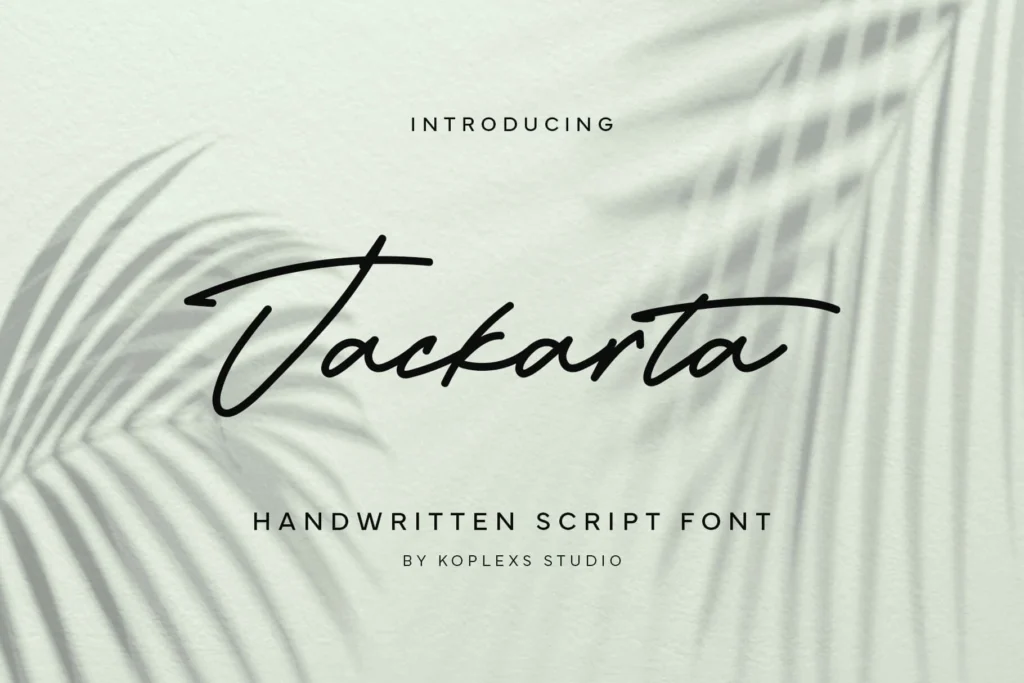
Have you ever noticed how a single handwritten-style word on a poster or invitation instantly feels more emotional or personal? That’s the unique charm of script alphabet fonts. They bring personality, artistry, and expression into visual design. Whether you’re building a brand or creating social media content, script fonts can help set the tone and shape how people perceive your message.
In this article, you’ll learn what makes script fonts distinctive, why designers love them, how different styles influence visuals, and practical considerations when choosing one. If you want your designs to stand out with elegance, warmth, or creative flair, understanding script fonts is essential.
Understanding Script Alphabet Fonts
Script alphabet fonts are typefaces designed to mimic handwriting and calligraphy. They range from formal and refined to casual and expressive.
Key Characteristics
- Varied stroke weight that imitates natural pen pressure
- Flowing and connected letterforms that create seamless handwriting-like shapes
- A dynamic baseline that rises and dips for an organic feel
- Ligatures that enhance smooth transitions between letters
Common Use Cases
Script fonts are most effective in display settings, such as:
- Logos
- Invitations
- Packaging
- Social media graphics
- Headline text
Because of their decorative nature, they are not recommended for long paragraphs.
14 Popular Script Alphabet Fonts
Below are several script fonts that designers frequently choose for different purposes.
1. Lovaria Font
Visual Suggestion: Elegant wedding invitation mockup
Font Pairing: Lovaria + Playfair Display
This script alphabet font Lovaria offers elegant, flowing calligraphic strokes that merge luxury and modern handwritten style. It’s ideal for premium branding, wedding invites or high-end packaging. If you’re aiming to give your visuals a refined signature look, Lovaria is a smart choice. Try it now for your next design project.
Lovaria Font2. Vilmada Font
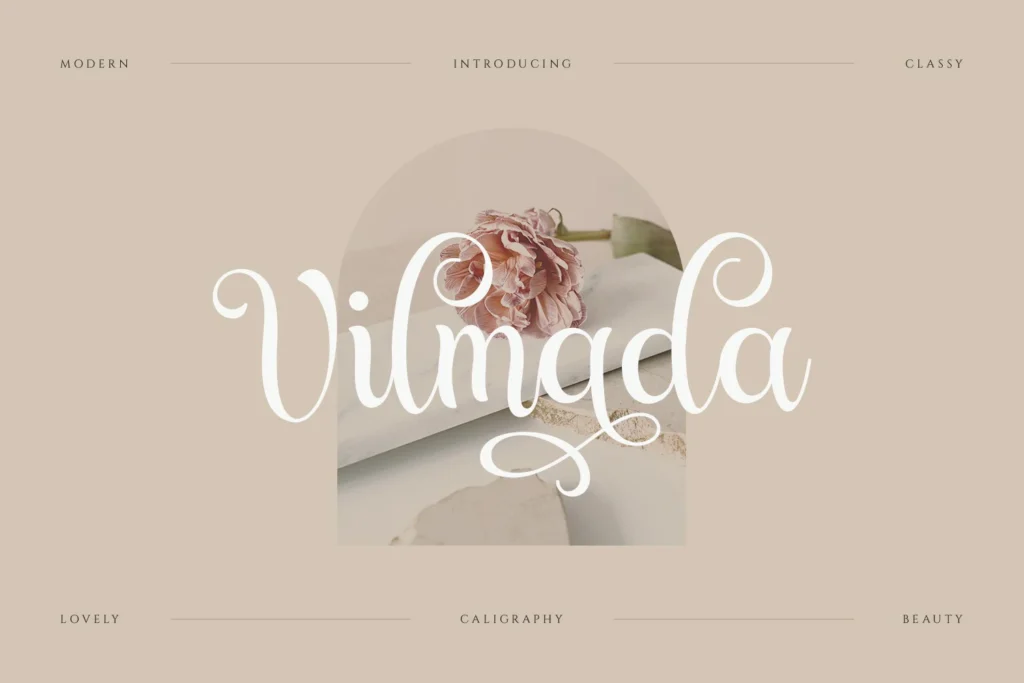
Visual Suggestion: Minimalist boutique logo design
Font Pairing: Vilmada + Lato
The script alphabet font Vilmada presents a sleek, natural handwritten aesthetic with clean fluid strokes. It works beautifully for lifestyle brands, blog headers or boutique logos. Give your typography a personal yet polished touch with Vilmada. Download and experiment today.
3. Welcome Dream Font
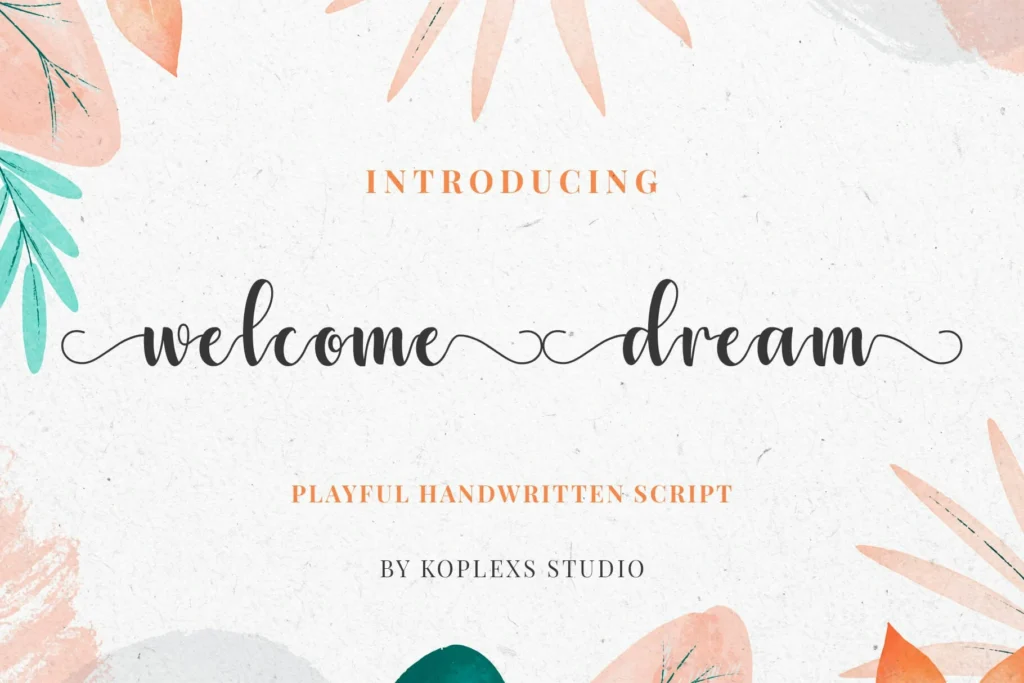
Visual Suggestion: Warm, soft-toned social media quote
Font Pairing: Welcome Dream + Montserrat
As a friendly and casual script alphabet font, Welcome Dream blends modern readability with handwritten charm. It’s perfect for creative headlines, social media graphics and everyday branding. Use it to bring warmth and authenticity into your designs. Get Welcome Dream and enhance your visual identity.
Visual Suggestion: Feminine beauty brand packaging
Font Pairing: Yellow Molly + Raleway
The script alphabet font Yellow Molly adds a playful, romantic vibe with its bouncy and fluid calligraphy style. Ideal for wedding stationery, feminine brands or boutique packaging, it brings personality and charm. Explore Yellow Molly to add character to your projects.
Visual Suggestion: Personal signature logo mockup
Font Pairing: Angelica Signature + Cormorant Garamond
The script alphabet font Angelica Signature gives a refined signature-style look, perfect for logos, business stationery or elegant personal branding. Use it when you want to project sophistication and a bespoke feel. Discover Angelica Signature for your premium design needs.
6. American Cloudie Font
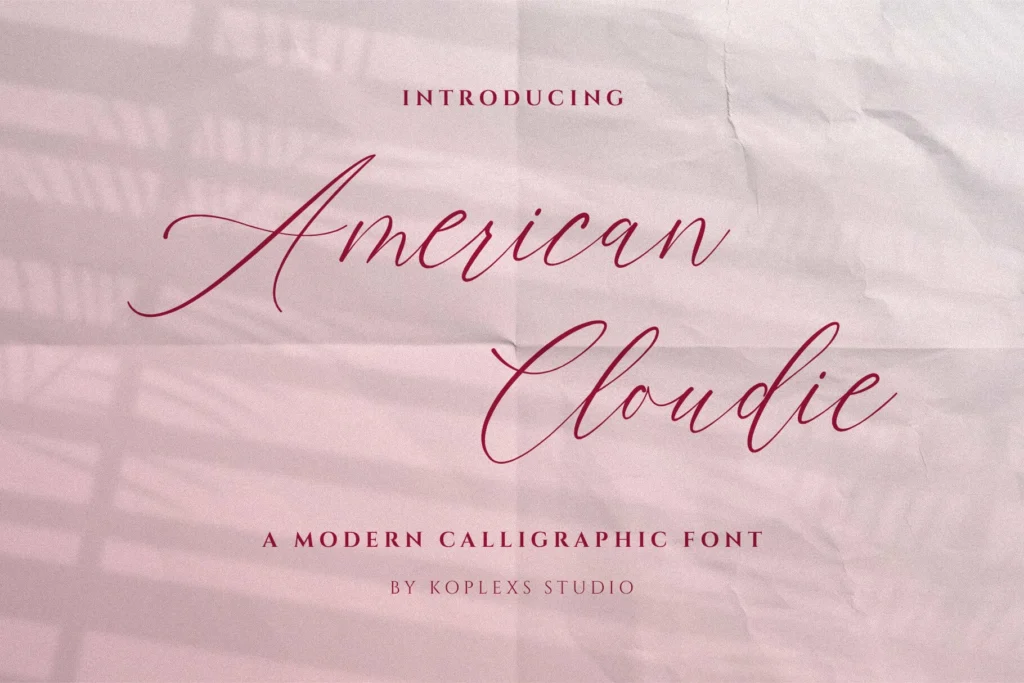
Visual Suggestion: Modern business card identity
Font Pairing: American Cloudie + Source Sans Pro
The script alphabet font American Cloudie offers a modern calligraphic style with expressive strokes, great for creative branding, signature logos and upscale prints. Add it to your font toolkit to give your brand a distinguished touch. Try American Cloudie now.
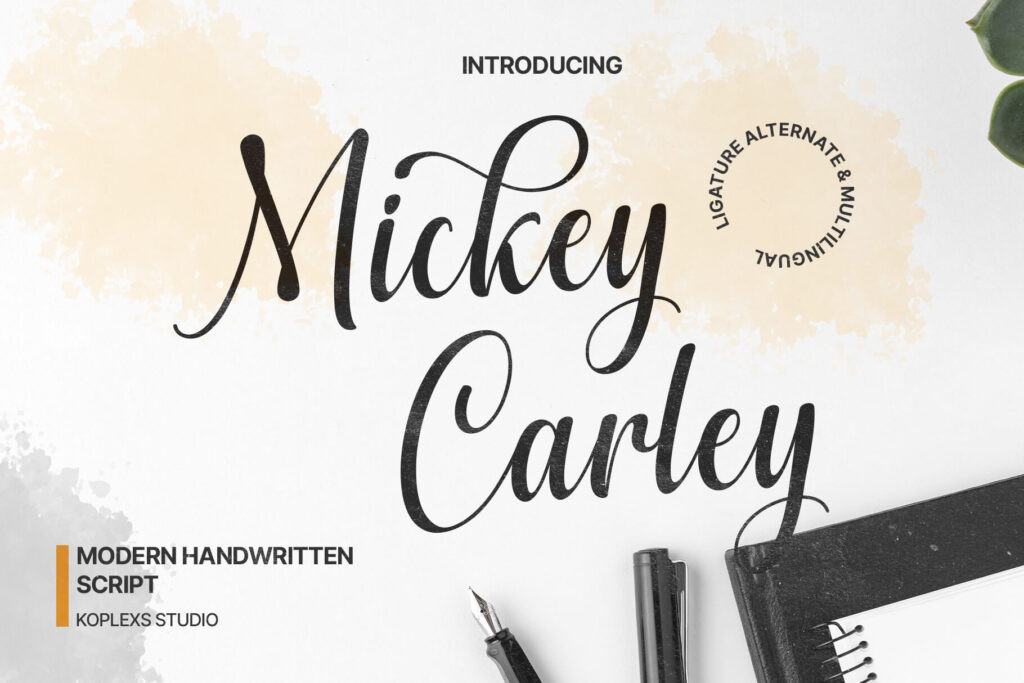
Visual Suggestion: Handmade product packaging label
Font Pairing: Mickey Carley + Inter
With its contemporary handwritten flair, the script alphabet font Mickey Carley is perfect for modern design projects, creative packaging, and social-first branding. It delivers personality with readability. Use Mickey Carley and stand out.
8. The Brown Font
Visual Suggestion: Lifestyle blog header
Font Pairing: The Brown + Merriweather
The script alphabet font The Brown features a casual handwritten style that still feels polished — great for boutique labels, lifestyle blogs or artisan goods. It strikes a balance between friendly and professional. Check out The Brown for your next project.
No. Because they are decorative, script fonts can be difficult to read in large chunks of text.
How do I choose the right script font?
Think about brand personality, readability, your target audience, and pairing options with simpler fonts.
Do script fonts work well on mobile?
Yes, as long as they are used in large sizes and the strokes are not overly intricate.